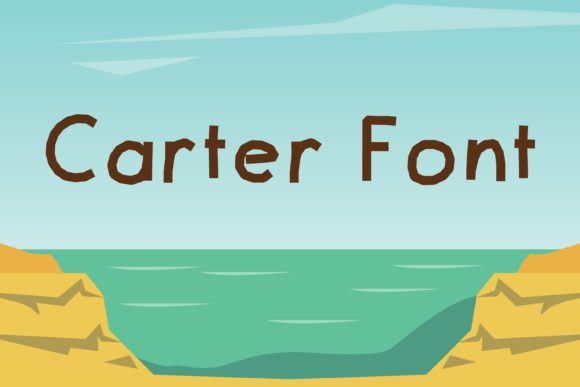
The Ultimate Guide to Carter Font: Adding a Dash of Whimsy to Your Designs
I’ll never forget the time I was working on a design project for a client’s birthday party invitations. I had the perfect concept, the colors were on point, but something was missing – the right font. I scrolled through my font library, but nothing seemed quite right. That’s when I stumbled upon Carter Font, a quirky and playful handwritten font that instantly brought my design to life. In this article, I’ll share my love for Carter Font, its features, and how to make the most of it in your designs.
An Honest Review of Carter Font
Carter Font has quickly become one of my go-to fonts for adding a touch of whimsy to my designs. Here’s what I love about it:
- ✨ Unique and playful handwritten style that’s perfect for designs that need a personal touch
- 🎉 Extensive character set, including glyphs and stylistic alternates
- 🖌️ Works beautifully for both digital and print designs
While Carter Font is an amazing addition to any design project, it’s not without its quirks:
- 🤔 Some users may find the font a bit too playful for formal designs
A Practical Guide to Using Carter Font
The Story Behind Carter Font
Carter Font was designed by a talented type designer who’s passionate about creating unique and playful fonts. Inspired by the world of children’s books and party decorations, Carter Font was born to bring a dash of whimsy to designs. The font’s quirky style and extensive character set make it perfect for a wide range of design projects.
| Font Name | Carter Font |
| Author | Sweet Dandy Designs |
| What type of designs is Carter Font best suited for? | Carter Font is perfect for designs that need a playful and whimsical touch, such as party invitations, greeting cards, and t-shirt designs. |